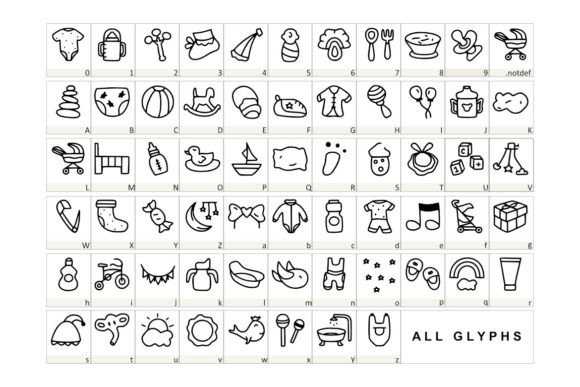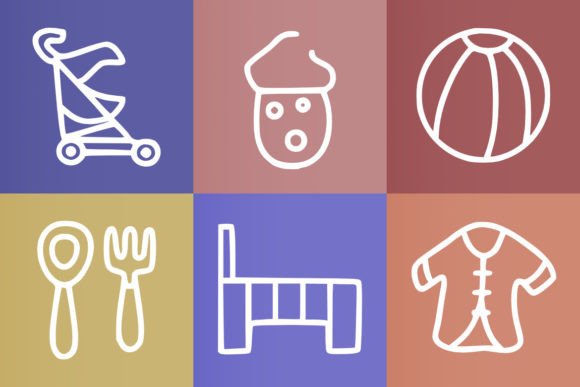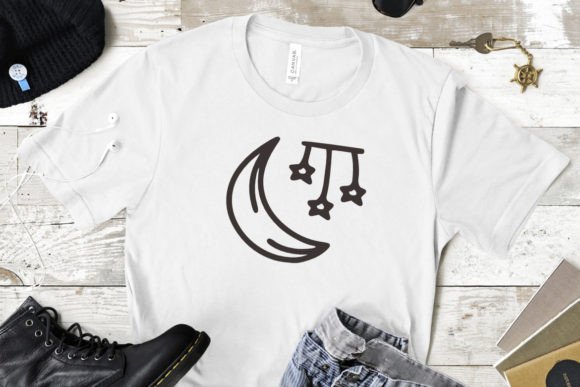
Designing with Love: Introducing Baby Care Font
Have you ever found yourself staring at a blank page, trying to come up with the perfect design to convey a message of love and care? For many designers, this is a familiar creative moment. It’s when the pressure to create something special is high, and the stakes are even higher – like designing a birthday card for a little one or creating a nursery decoration that will be cherished for years to come.
This is where the Baby Care Font comes in – a charming and practical dingbats font designed specifically for projects that call for a touch of warmth and personality. With its cute and playful characters, Baby Care Font is perfect for stickers, posters, t-shirts, cards, and apparel graphics. Whether you’re a seasoned designer or just starting out, this versatile font is sure to be a valuable addition to your toolkit.
Baby Care Font Key Features
- Unique Characteristics: The Baby Care Font features a soft, rounded design with a childlike feel, making it perfect for baby-related products and services.
Designer Review: Baby Care Font
Overall, I’d say the Baby Care Font has some great qualities, but also some areas that need improvement.
- Soft, rounded shapes that evoke a sense of care and nurturing
- Legible and easy to read, even at small font sizes
- Works well for titles and headings, with a clear hierarchy of text
- Limited character set, which may make it difficult to use for longer bodies of text
- Not as versatile as some other fonts, with a limited range of weights and styles
- May not be suitable for digital use, as the font appears to be optimized for print
Overall, I think the Baby Care Font is a solid choice for projects that require a soft, nurturing feel. However, it may not be the best option for projects that require a high degree of customization or flexibility. With some additional development, I think this font has the potential to be a real standout.
Getting the Most Out of Baby Care Font
To get the most out of the Baby Care Font, consider the following tips:
– Use it for baby-related projects, such as nursery decor, baby shower invitations, and children’s books.
– Experiment with different font sizes and colors to create a visually appealing design.
– Combine the Baby Care Font with other fonts and graphics to create a unique and eye-catching design.
The Baby Care Font is commonly used for:
– Baby shower invitations and decorations
– Nursery decor and wall art
– Children’s books and educational materials
– Baby product packaging and branding
Alternatives to Baby Care Font
Pacifico is a beautiful script font that is perfect for designs that require a touch of elegance and sophistication. It is ideal for use in logos, invitations, and other creative projects where a handwritten feel is desired.
Compared to Baby Care Font, Pacifico has a more refined and polished look, making it suitable for a wider range of applications. While Baby Care Font is more playful and childlike, Pacifico is more versatile and can be used in various contexts.